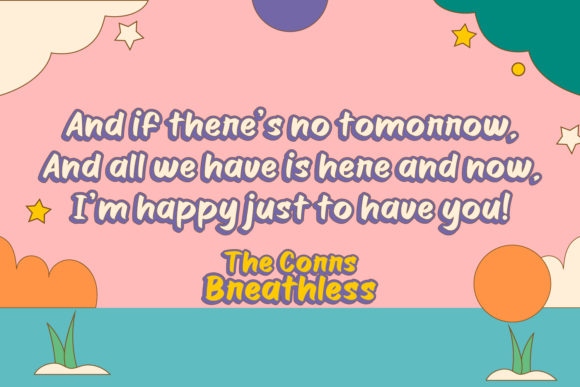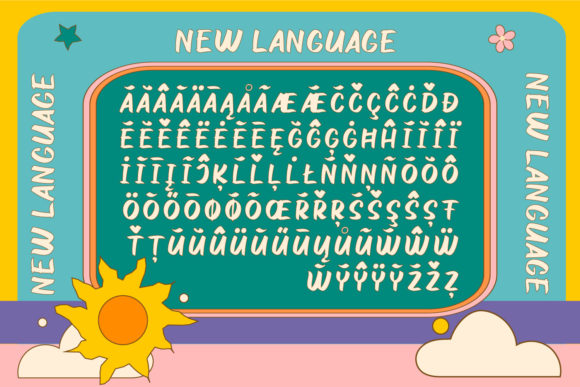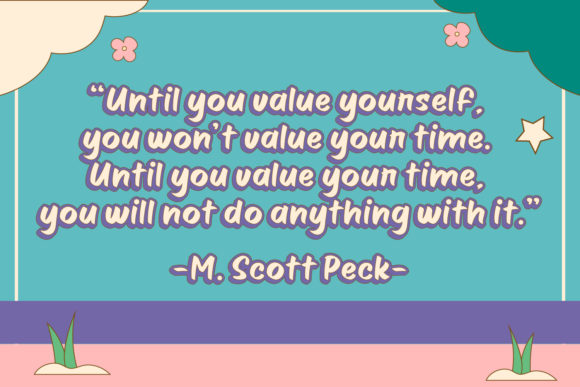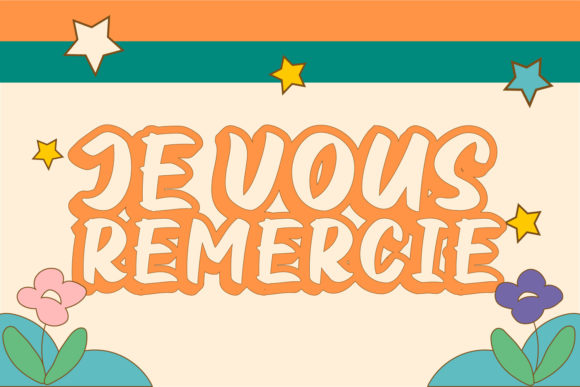
Discover the Charm of California Kingston Font
As a designer, have you ever found yourself rummaging through your collection of fonts, searching for that perfect match to add a touch of authenticity to your chalkboard quotes or teaching materials? I’m sure we’ve all been there – scrolling through font galleries, only to come across a font that screams “I’m the one!” And that’s exactly what happened when I stumbled upon the California Kingston Font.
This adorable, paint-brushed display font is more than just a pretty face – it’s a versatile tool that can add a personal and realistic feel to any design. With its rustic charm, California Kingston Font is perfect for creating eye-catching chalkboard quotes, educational materials, and even decorative signs. Whether you’re a teacher, a crafter, or a designer, this font is sure to become a valuable addition to your toolkit.
California Kingston Font Features
- Font Family: California Kingston Font is a unique, hand-drawn script font designed to evoke a relaxed, California vibe.
- Character Set: Includes a wide range of characters, including uppercase and lowercase letters, numbers, punctuation, and special characters.
- Unique Characteristics: Features a distinctive, handwritten feel with subtle imperfections and variations in letterform, giving it a personal, human touch.
California Kingston Font Review
The California Kingston font is a beautiful and elegant script font that is perfect for creating a laid-back, West Coast vibe. It works well in many contexts, including:
- 📚 Book and magazine titles: The font’s elegant script style makes it perfect for adding a touch of sophistication to book and magazine titles.
- 💻 Headings and subheadings: The font’s clear and legible design makes it a great choice for headings and subheadings in digital design projects.
- 📝 Social media and advertising: The font’s playful and casual style makes it perfect for social media and advertising projects that need to convey a relaxed, California-inspired vibe.
- ⚠️ Limited language support: The font may not support all languages, which could be a limitation for projects that require multilingual support.
- ⚠️ Not suitable for small text: The font’s elegant script style may not be suitable for small text, as it can be difficult to read.
Overall, I think the California Kingston font is a great choice for designers who want to add a touch of California cool to their projects. While it may have some limitations, it’s a versatile and stylish font that can add a lot of personality to your designs.
For a more polished look, pair the California Kingston font with a clean and minimal design aesthetic.
For a unique look, experiment with bolding or italicizing the font to add emphasis.
For a professional look, pair the California Kingston font with a clear and concise layout.
The California Kingston font is ideal for:
- Designing wedding invitations or stationery.
- Creating social media graphics or posters.
- Developing a brand identity or logo.
Remember to experiment with different font sizes, styles, and colors to get the most out of the California Kingston font.